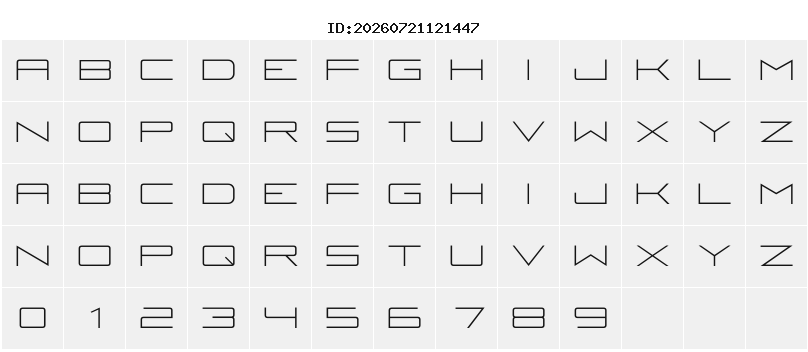
• Font Name: Fireye GF 3
• Font Style: Lite
• Full Font Name: Fireye GF 3 Lite
• Designer: John Litwinowicz
• Manufacturer: Grayfire Fonts
About Fireye GF 3.ttf
Fireye GF 3.ttf is a modern, elegant sans-serif font designed for ultimate readability and visual harmony. Perfect for branding, headlines, web design, and print materials.